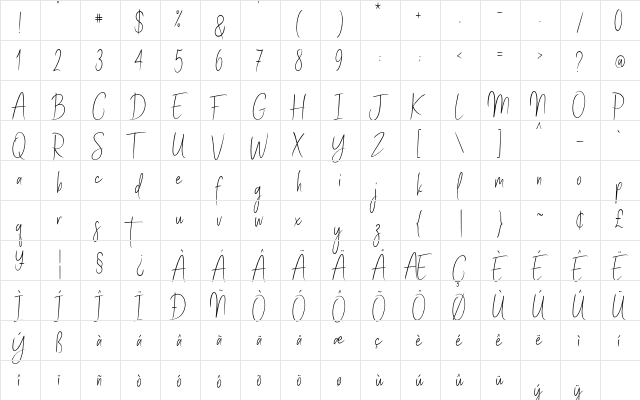
Stay Classy SLDT Regular
Design Context for Stay Classy SLDT Typeface
Stay Classy SLDT is a composed and adaptable typeface that performs quietly and consistently across a wide range of design contexts.